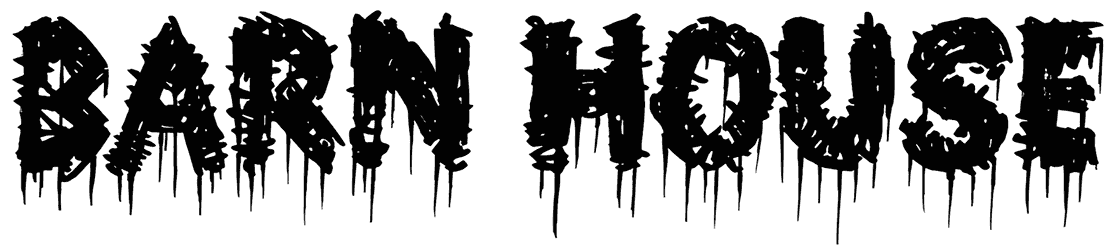
Barn House Font
Designed byJSH creates
Barn House is one of the melting zombie fonts that can work very well in spooky-themed projects. This horror font can give a cheap thrill to your art and remove it from stereotypes.
There is no place for numbers and small letters in this dripping font set. But still, as a versatile collection, it can find several meanings and leave a lasting design on book covers, movie posters, and Halloween advertisements.